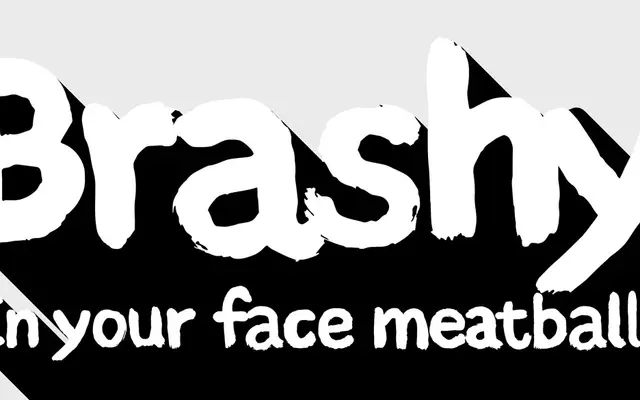
Brashy
A single-weight brush script by Rob Keller built around automatic glyph cycling to produce genuinely unpredictable, handmade-looking typesetting.
Each letter ships with at least two alternate forms and the main alphabet offers up to six, all managed by contextual alternates code Mota Italic call 'Flippy Letter™'. As you type, previously set characters shift forms unpredictably, avoiding the repetition that exposes most digital handwriting fonts. The 1,573-glyph set extends well beyond the core alphabet to include swash letters, connecting flourishes, 128 dingbats and practical symbols, covering most European Latin-based languages.
Brashy is a brush script simulating spontaneous, unskilled hand-lettering with a loaded brush, characterised by sloppy, variable letterforms rather than calligraphic refinement.